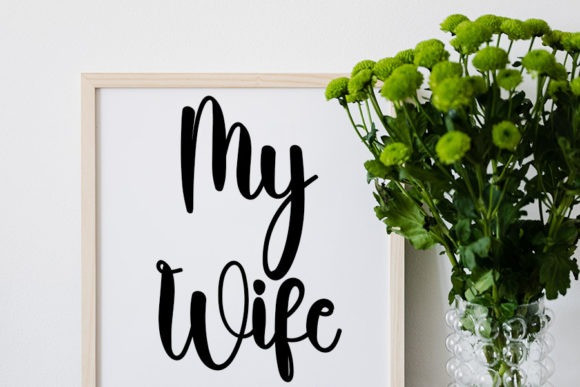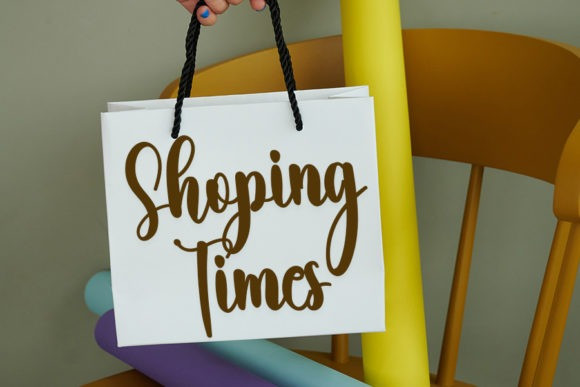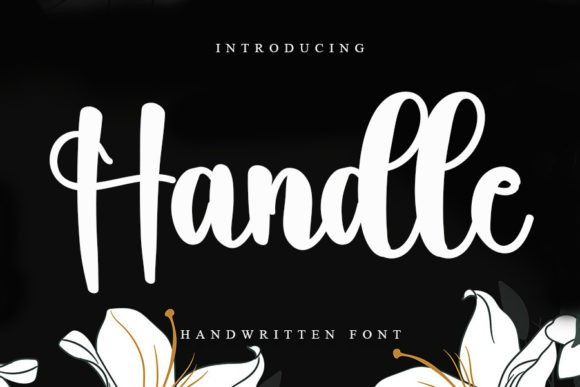
Handle Font
Handle Font is a stylish handwritten font with a contemporary atmosphere and impeccable form, inspired by a timeless classic calligraphy. Balanced and varied, this font was designed to enhance the beauty of your projects.